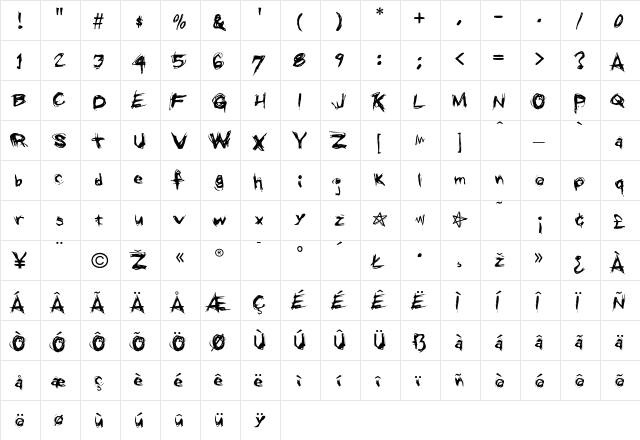
Grumble Regular
Design Context for Grumble Typeface
Grumble is a composed and adaptable typeface that performs quietly and consistently across a wide range of design contexts.